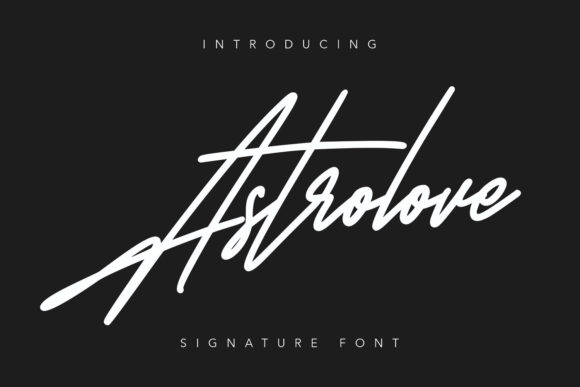
Falling in Love with Astrolove Font: A Designer’s Dream Come True
I’ll never forget the moment I stumbled upon the perfect font for a project that had been lingering in my design queue for weeks. I was working on a branding campaign for a trendy new coffee shop, and I just couldn’t find the right fit. That was until I discovered Astrolove Font – a relaxed and timeless handwritten font that instantly captured the essence of the brand. In this article, I’ll share my love affair with Astrolove, its features, and how to make the most of it in your designs.
An Honest Review of Astrolove Font
So, what makes Astrolove so special? Let’s dive into the good stuff and a few quirks I’ve encountered.
What I Love About Astrolove ✨
- ✅ Unique and flowing script that adds a personal touch to any design
- ✨ Highly legible, even at smaller font sizes
- ✅ Extensive character set, including OpenType features and stylistic alternates
- ✨ Works beautifully for both digital and print projects
- ⚠️ Some users may find the font a tad too casual for very formal projects
- ⚠️ Limited availability of certain special characters (but who needs those, really?)
The Story Behind Astrolove Font
While the actual origins of Astrolove Font might be shrouded in mystery, it’s easy to imagine a designer sitting under the stars, pouring their heart into creating a font that’s both timeless and trendy. Perhaps they were inspired by the flowing scripts of ancient manuscripts or the carefree vibe of handwritten notes. Whatever the story, Astrolove has captured the hearts of designers worldwide.
Q: What makes Astrolove Font unique?
A: Astrolove’s unique blend of relaxation and timelessness sets it apart from other handwritten fonts.
Q: Does Astrolove support OpenType features?
A: Yes, Astrolove includes OpenType features, glyphs, and stylistic alternates for added versatility.
Q: Is Astrolove suitable for body text?
A: While Astrolove is beautiful, it might be better suited for headings and titles due to its script nature. However, it can work for body text in certain design contexts.